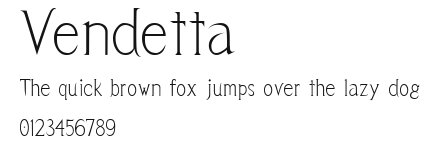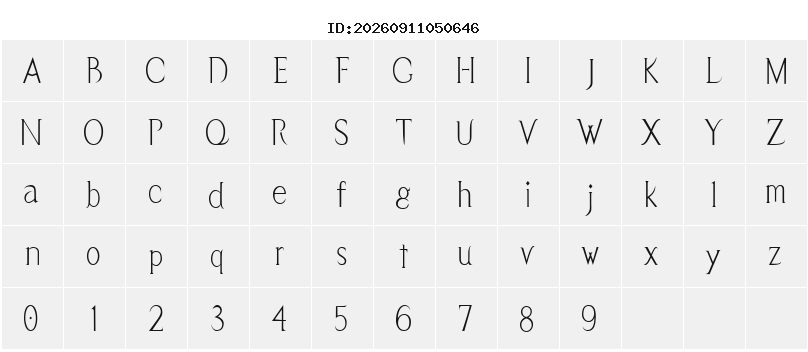
Vendetta Preview
• Font Name: Vendetta
• Full Font Name: Vendetta
• PostScript Name: Vendetta
About Vendetta.ttf
Vendetta.ttf is a modern, elegant sans-serif font designed for ultimate readability and visual harmony. Perfect for branding, headlines, web design, and print materials.